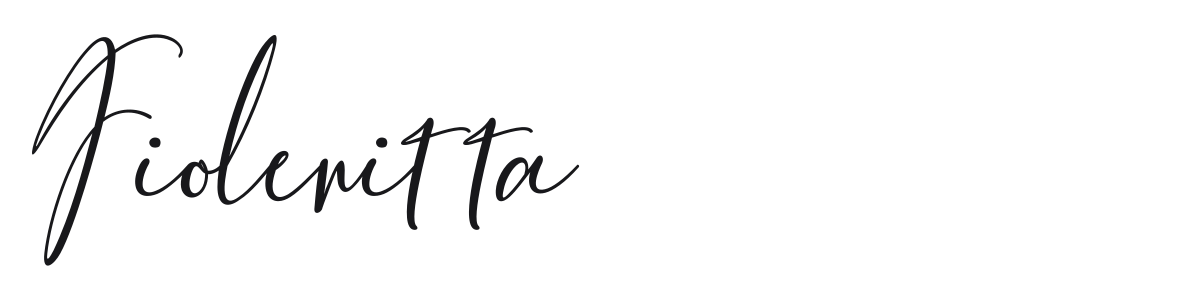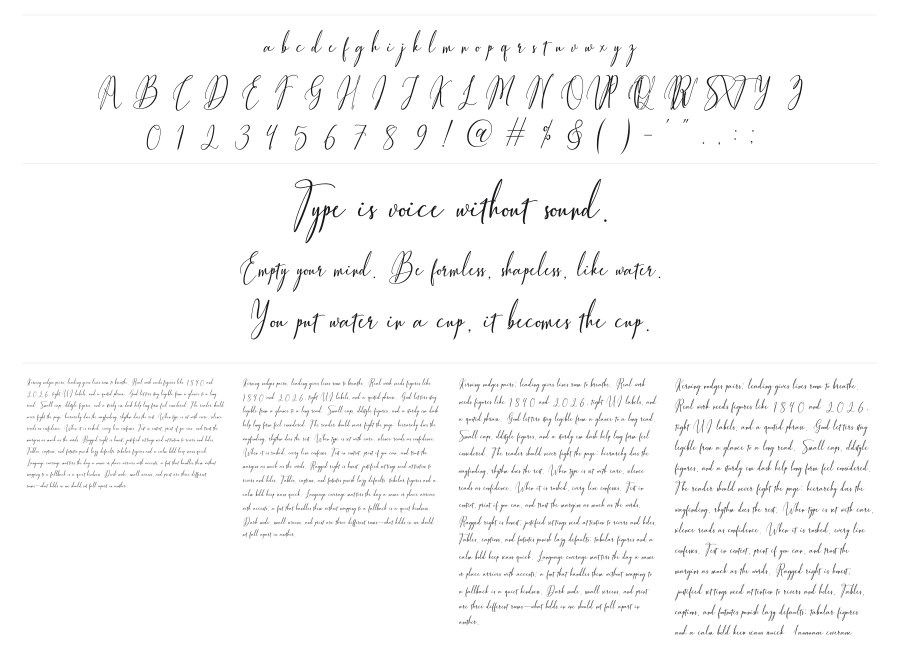
Fiolenitta
Fiolenitta is a lively casual script with flowing connected strokes and expressive ascenders and descenders. The light weight and generous loops give it a handwritten warmth that reads as both romantic and contemporary. It suits wedding stationery, boutique branding, and any project that needs an organic, personal touch.